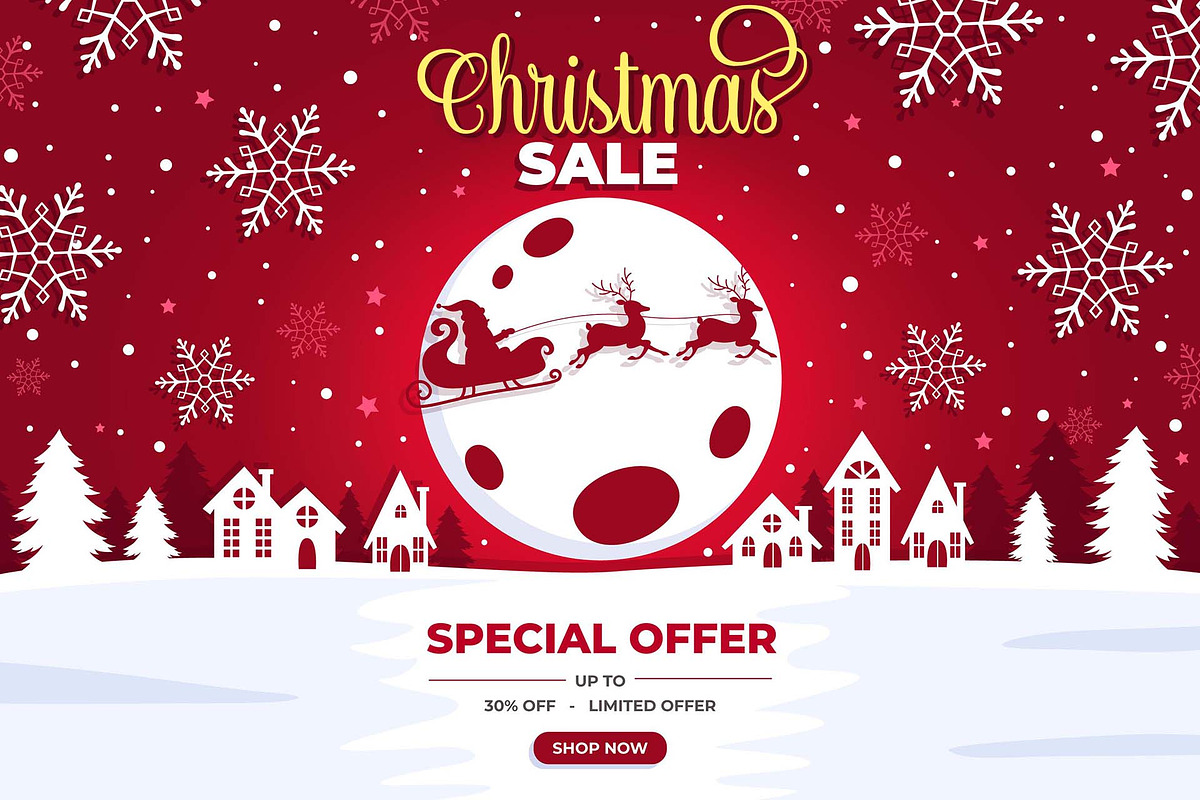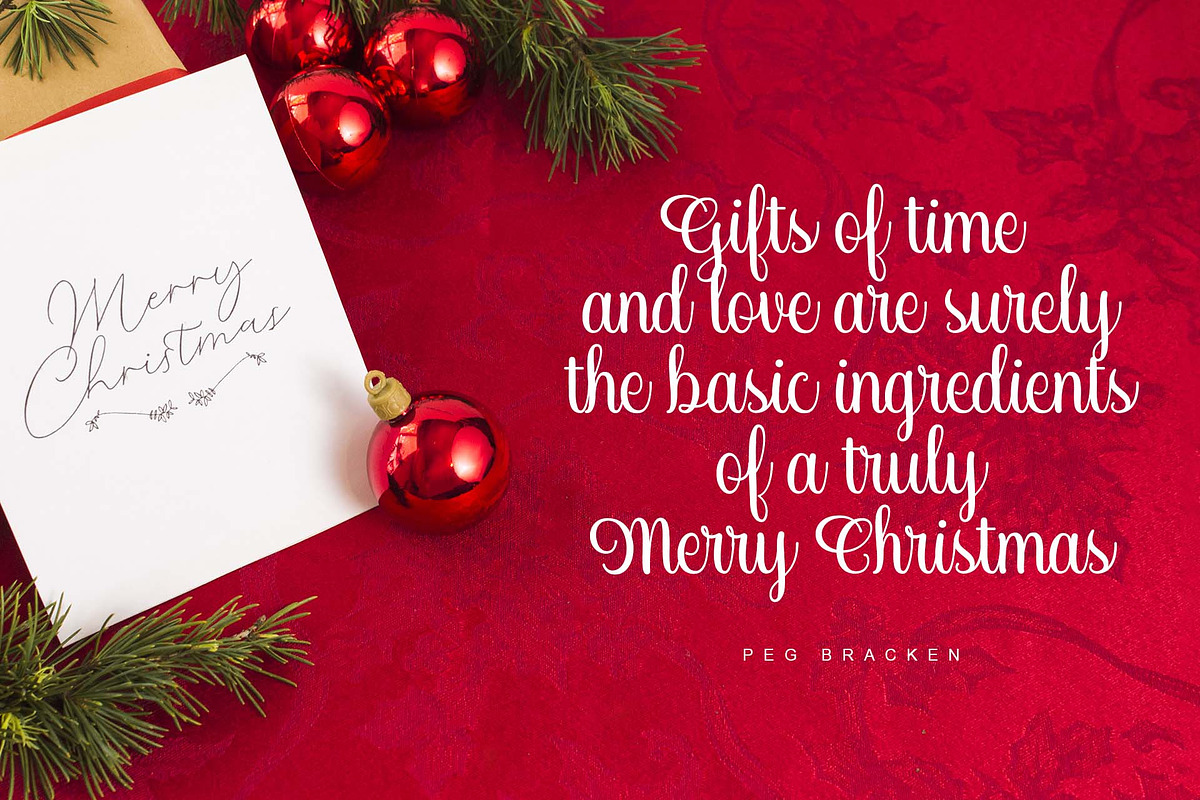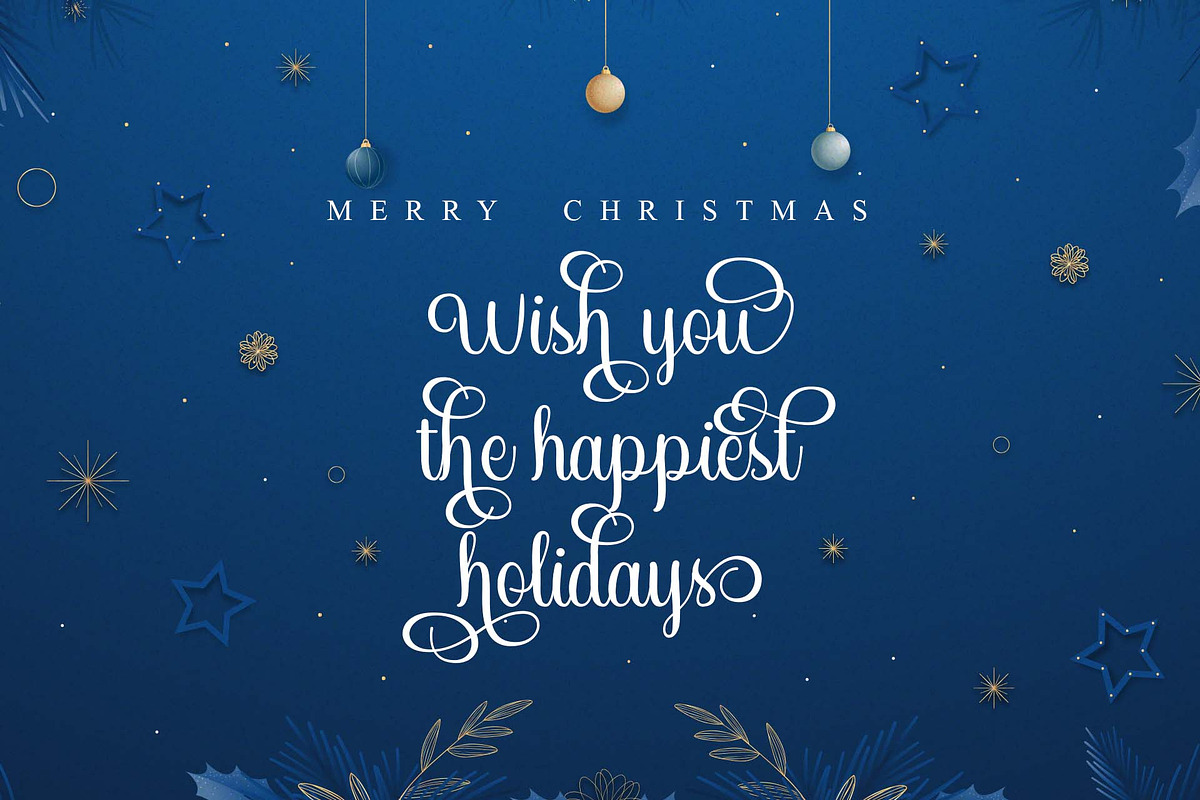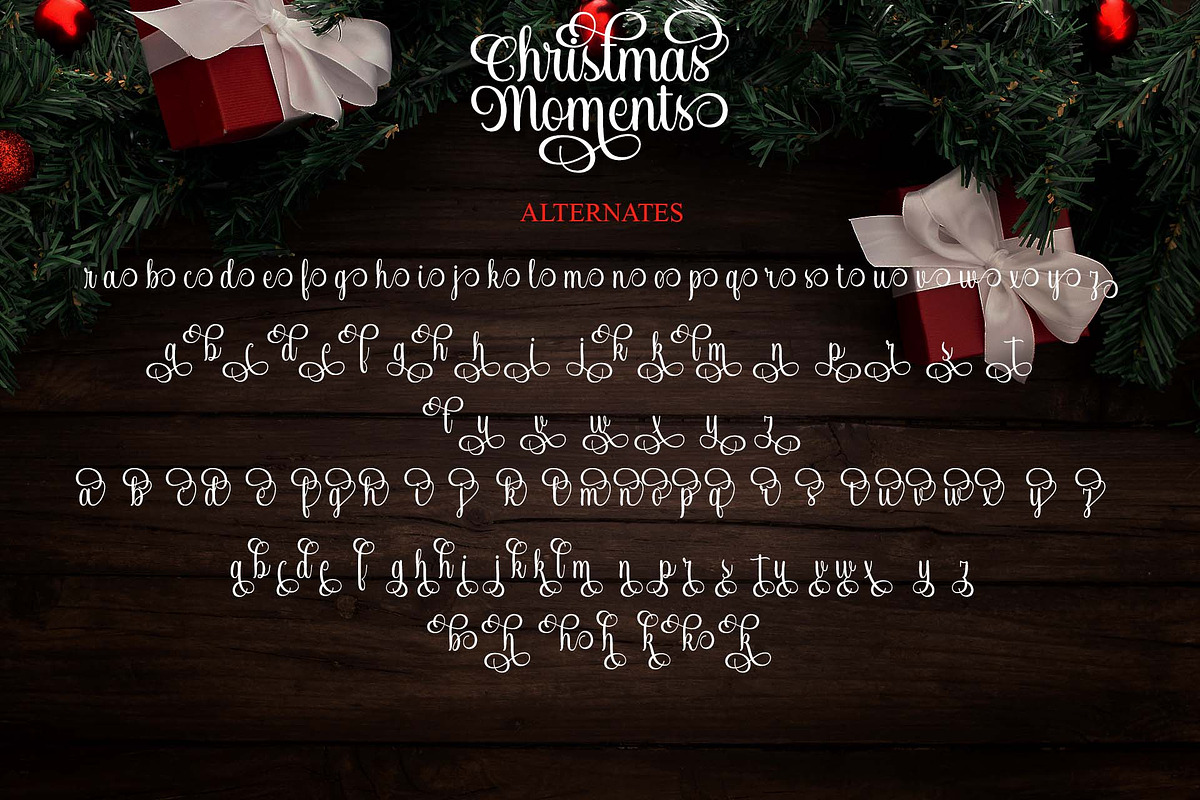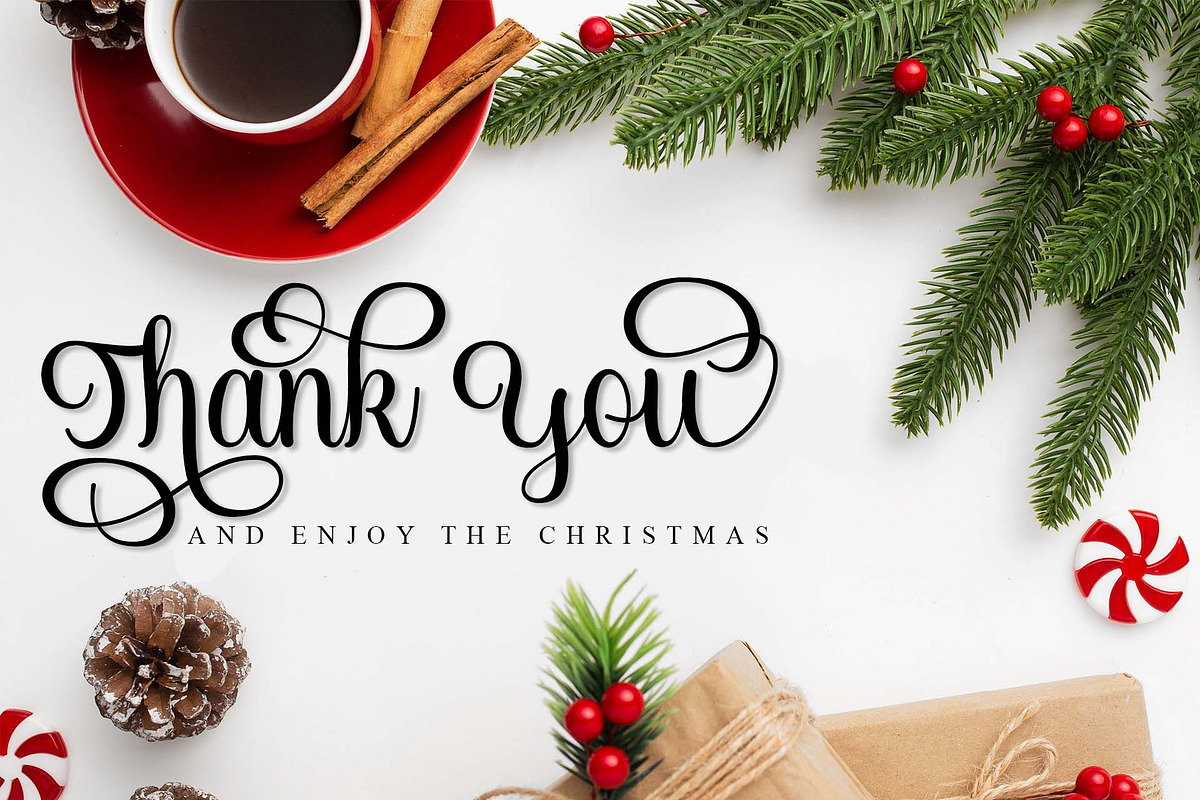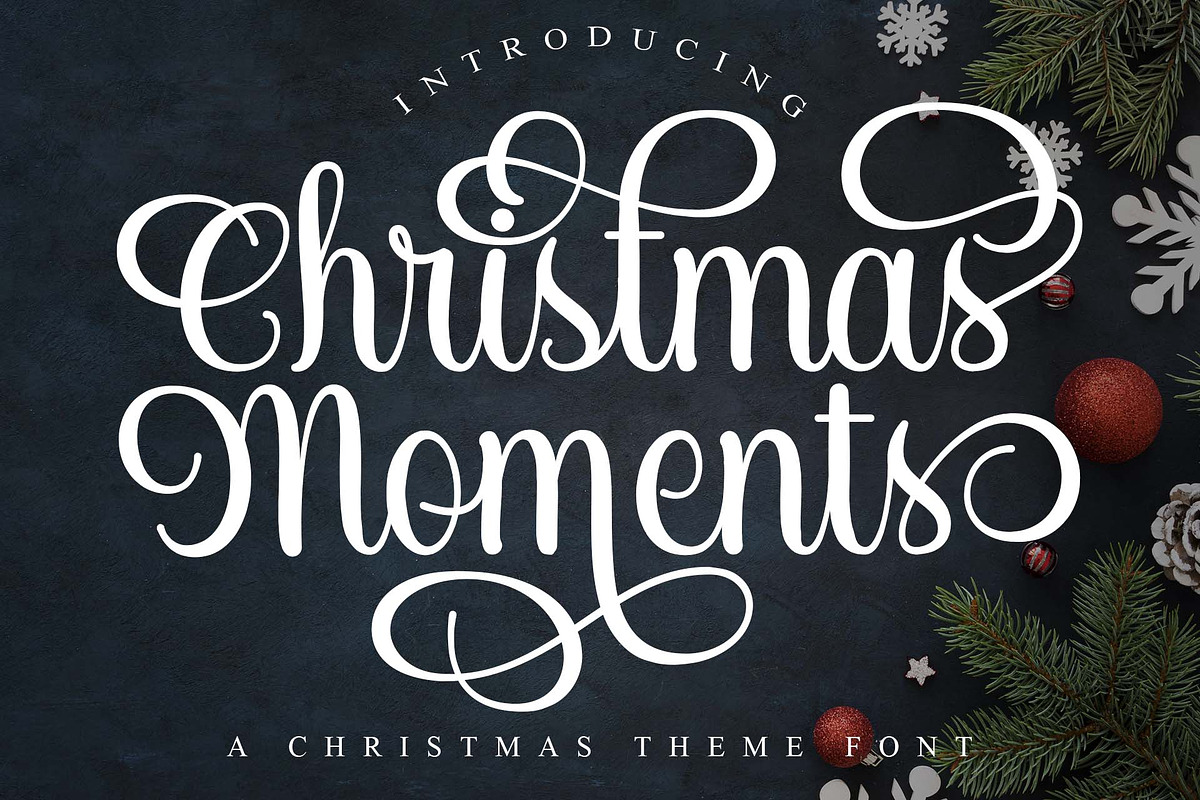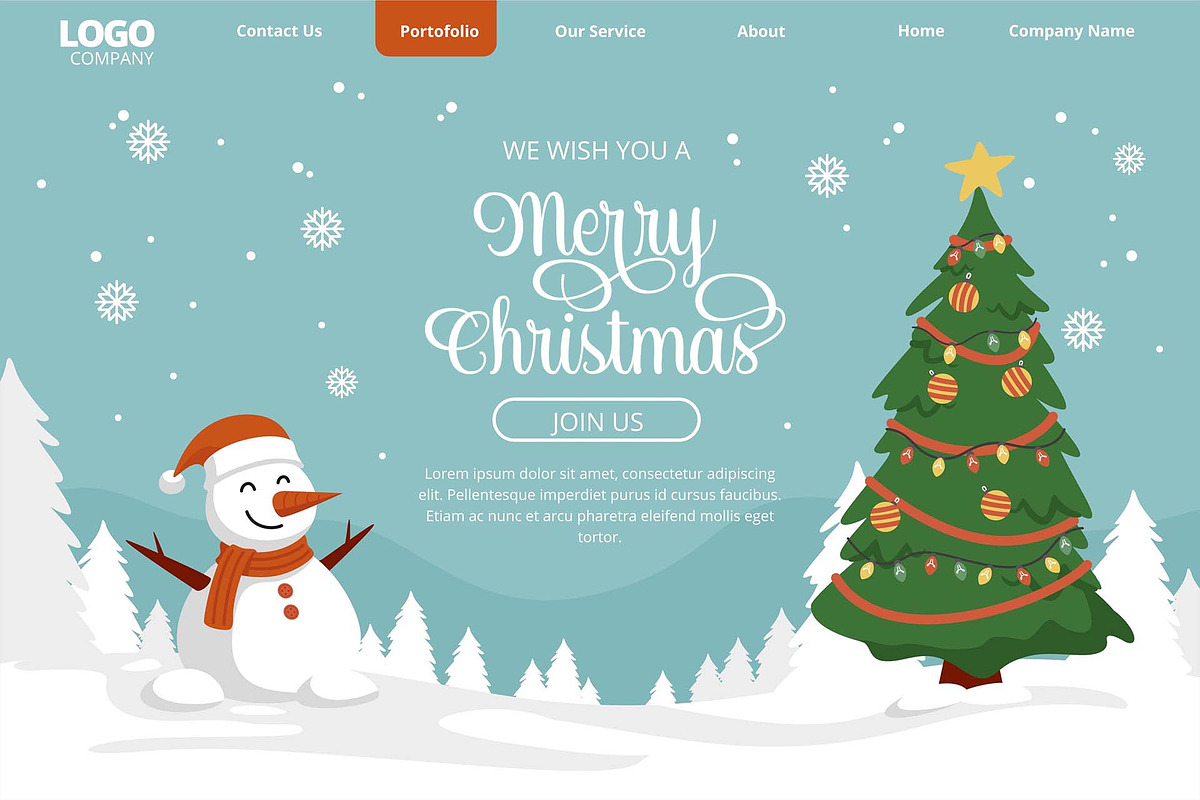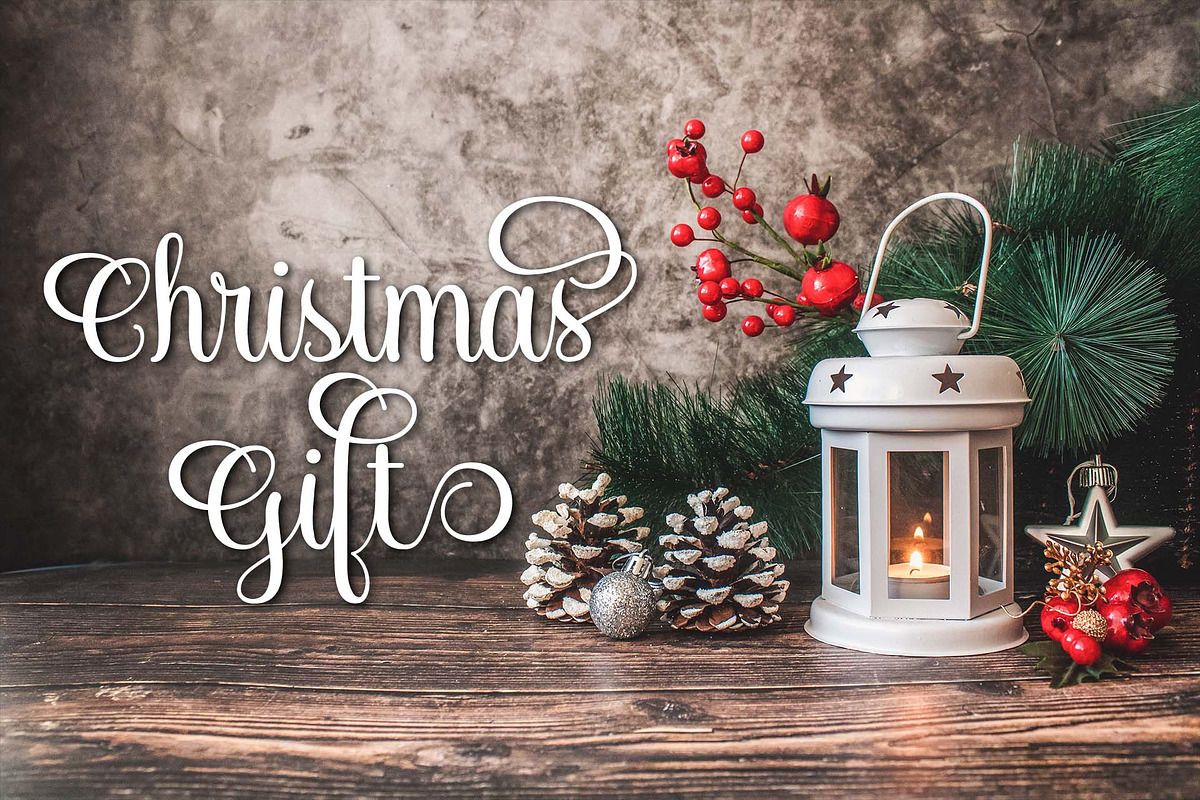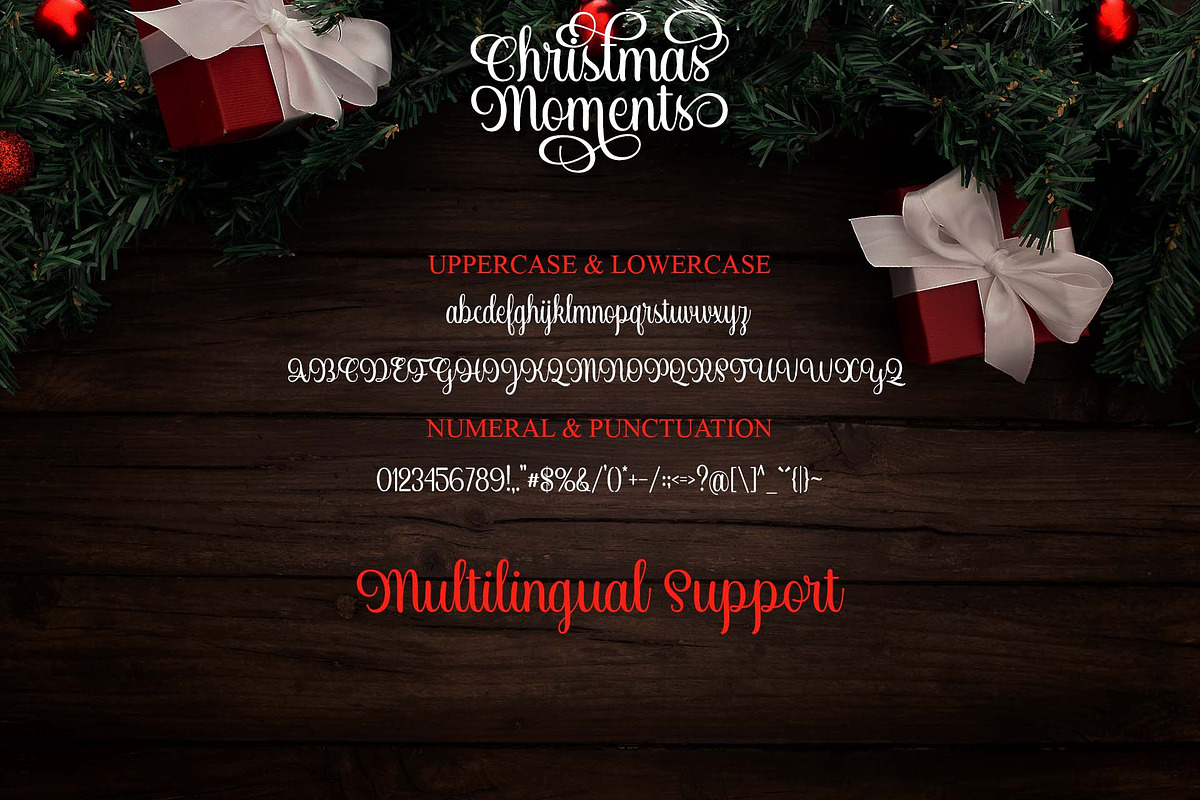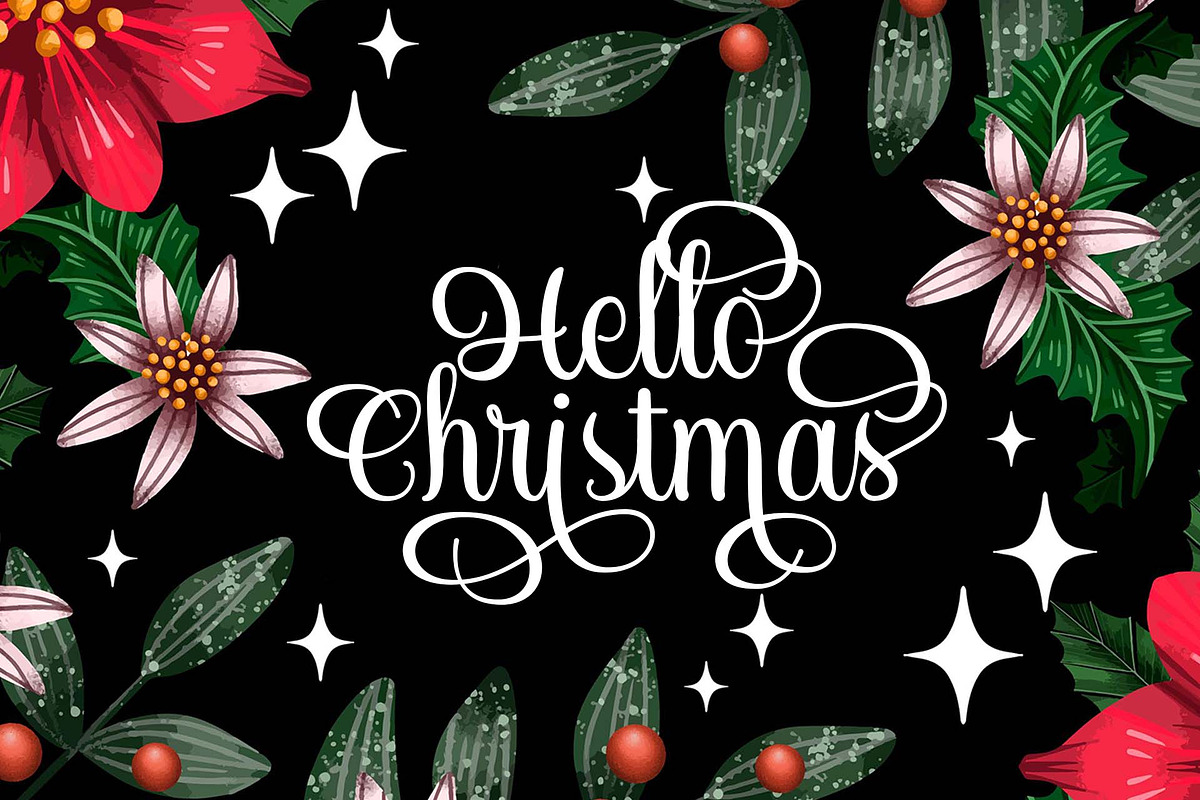
Christmas Moments
Introducing Christmas Moments - A Christmas Theme Font
Christmas Moments is a romantic and sweet calligraphy typeface with characters that dance along the baseline. It will add a luxury spark to any design project that you wish to create! This font is PUA encoded which means you can access all of the amazing glyphs and ligatures with ease!